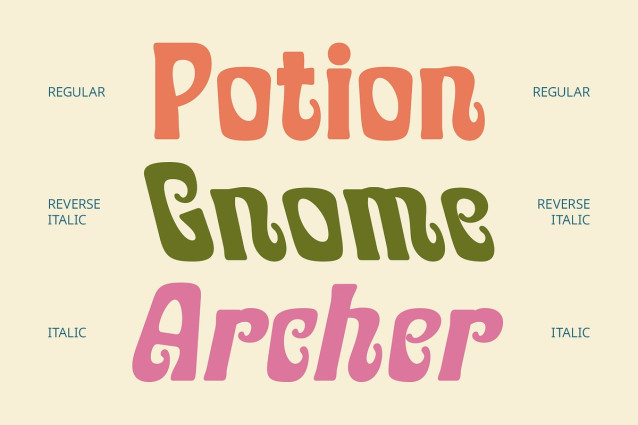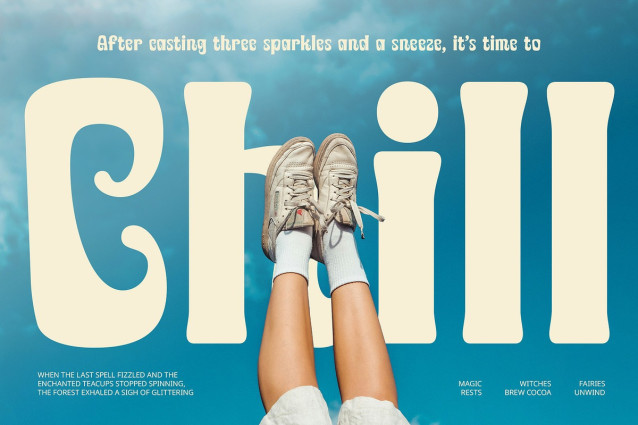
CS Saberin Font
CS Saberin Font is a bold display font that instantly radiates joy and friendliness. Its charming, chunky shapes and funky style bring a sense of fun to every letter, making it an excellent choice for designs that aim to express playfulness, energy, and warmth. With a lighthearted presence and quirky flair, it’s a font that invites creativity from the very first glance.
Playful Shapes for Expressive Designs Designed with personality in every curve, CS Saberin features exaggerated proportions and soft edges that enhance its expressive feel. The playful letterforms allow for dynamic visual storytelling, adding movement and character to your layouts. It’s a perfect fit for titles, headlines, or any design element that needs to pop with energy and excitement.
Perfect for Kids and Creative Branding Whether you’re designing posters for children’s events, educational materials, toy packaging, or even a brand for a colorful café, CS Saberin’s friendly tone and cheerful aesthetic make it a go-to choice. It bridges the gap between approachability and uniqueness—ensuring your work feels both memorable and delightful.
Aesthetic Versatility with Bold Impact Though inherently fun, CS Saberin remains highly legible and bold, offering a strong visual impact across different platforms. It works beautifully in both print and digital applications, scaling smoothly for large headlines or playful display pieces.